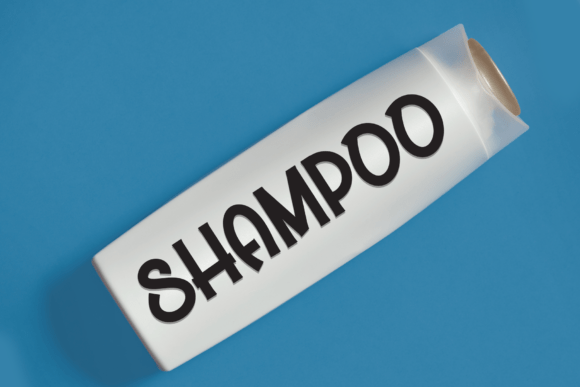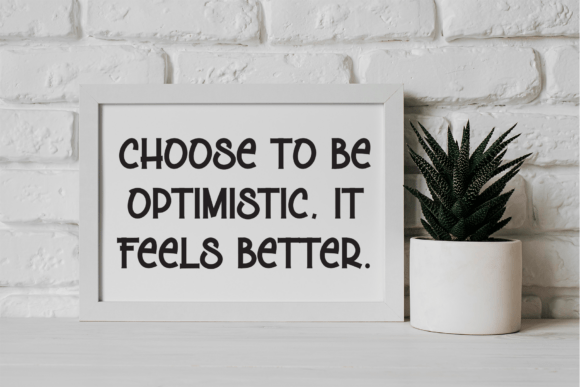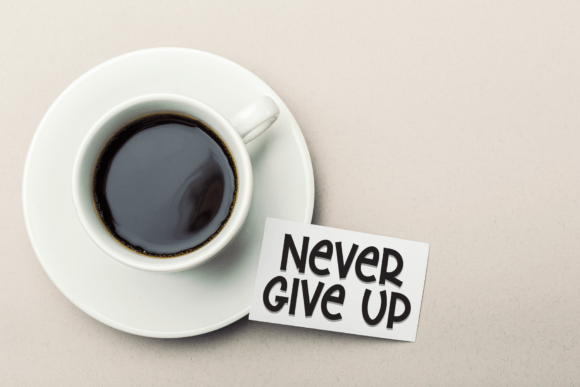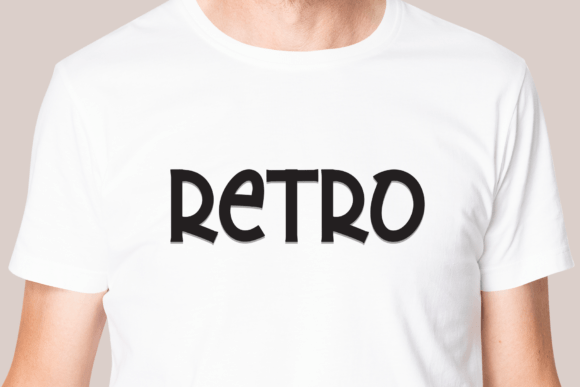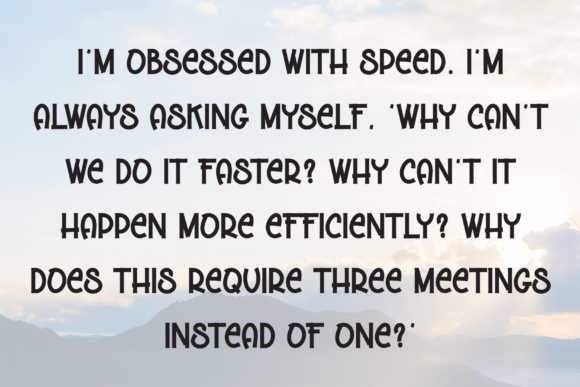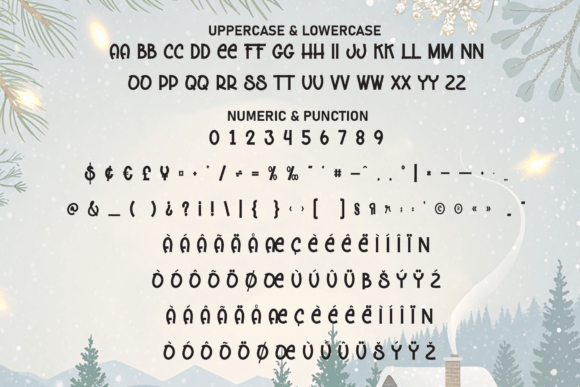
Introducing Charlie Christmas Font: The Perfect Blend of Simplicity and Friendliness
Are you tired of using the same old fonts for your designs? Look no further! Charlie Christmas font is here to revolutionize your typography game. This casual and neat display font combines simplicity with a friendly, approachable vibe, making it perfect for designers and crafters alike. In this article, we’ll dive into the features and benefits of Charlie Christmas font, and explore how it can elevate your designs to the next level.
Clean Lines, Balanced Letterforms, and Subtle Rounded Edges
One of the standout features of Charlie Christmas font is its clean lines, balanced letterforms, and subtle rounded edges. This font boasts a modern handwritten typography style with a polished finish, making it ideal for a wide range of design applications. The clean lines and balanced letterforms ensure that your text is easy to read, while the subtle rounded edges add a touch of warmth and friendliness.
Perfect for Branding, Headlines, Packaging, and Digital Content
Charlie Christmas font is incredibly versatile, making it suitable for various design projects. Whether you’re working on branding, headlines, packaging, or digital content, this font is sure to deliver. Its crisp structure and versatile style ensure that your text is clear and easy to read, while its warm and inviting tone adds a touch of personality to your design.
Branding
When it comes to branding, typography plays a crucial role in establishing your brand’s identity. Charlie Christmas font is perfect for creating logos, business cards, and other brand materials. Its friendly and approachable vibe makes it ideal for brands that want to convey a sense of warmth and approachability.
Headlines
Headlines are a crucial element of any design project, and Charlie Christmas font is perfect for creating eye-catching headlines. Its clean lines and balanced letterforms ensure that your headlines are easy to read, while its subtle rounded edges add a touch of sophistication.
Packaging
Packaging design is all about creating a lasting impression, and typography plays a critical role in this process. Charlie Christmas font is perfect for packaging design, as it adds a touch of warmth and personality to your product packaging.
Digital Content
In today’s digital age, typography is more important than ever. Charlie Christmas font is perfect for digital content, including social media graphics, blog posts, and website headers. Its clean lines and balanced letterforms ensure that your text is easy to read on any device.
- Unique and Versatile: Charlie Christmas font is a unique and versatile font that can be used for a wide range of design applications.
- Easy to Read: Its clean lines and balanced letterforms ensure that your text is easy to read, even at small sizes.
- Warm and Inviting: The subtle rounded edges and friendly vibe of Charlie Christmas font add a touch of warmth and personality to your design.
- Polished Finish: This font boasts a polished finish, making it perfect for professional design projects.